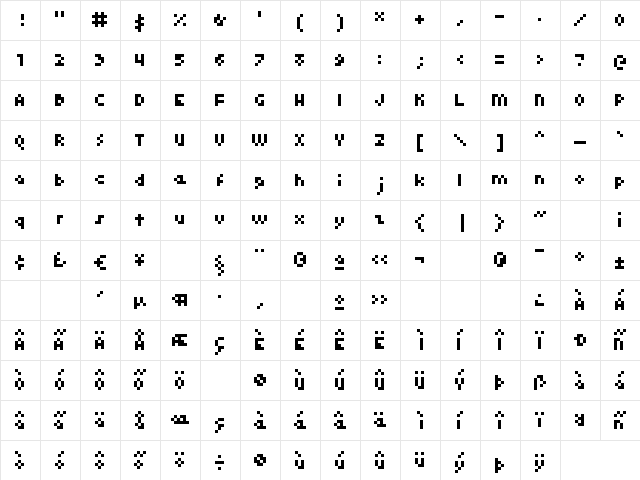
kroeger 04_55 Regular Font Preview
kroeger 04_55 Regular
kroeger 04_55 Regular Font Details
Design Context for kroeger 04_55 Typeface
kroeger 04_55 offers clean, dependable letterforms without strong stylistic allegiance, making it a practical choice for designers who need flexibility.